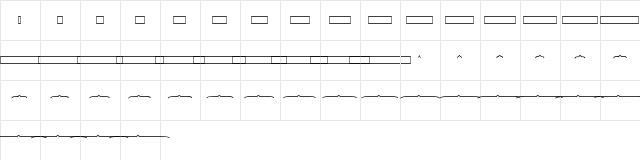
KG Math Bar Models Regular
| Foundry | Kimberly Geswein |
| Designer | Kimberly Geswein |
Design Context for KG Math Bar Models Typeface
KG Math Bar Models is a composed and adaptable typeface that performs quietly and consistently across a wide range of design contexts.